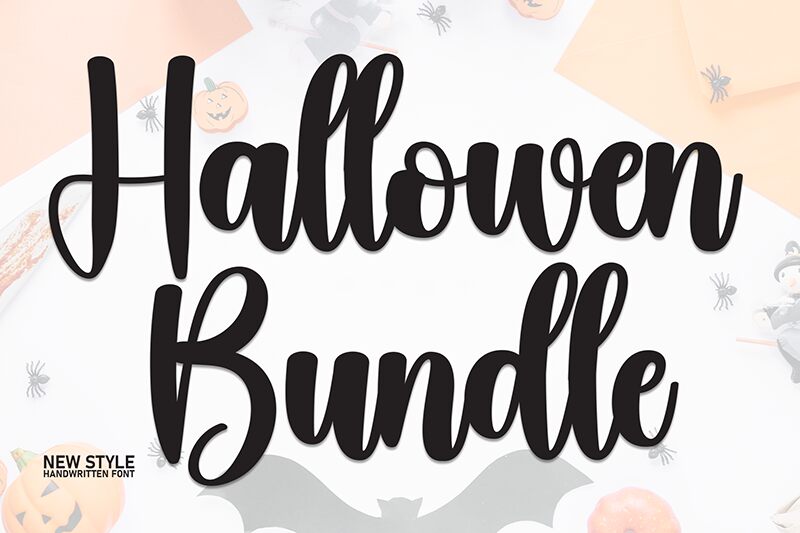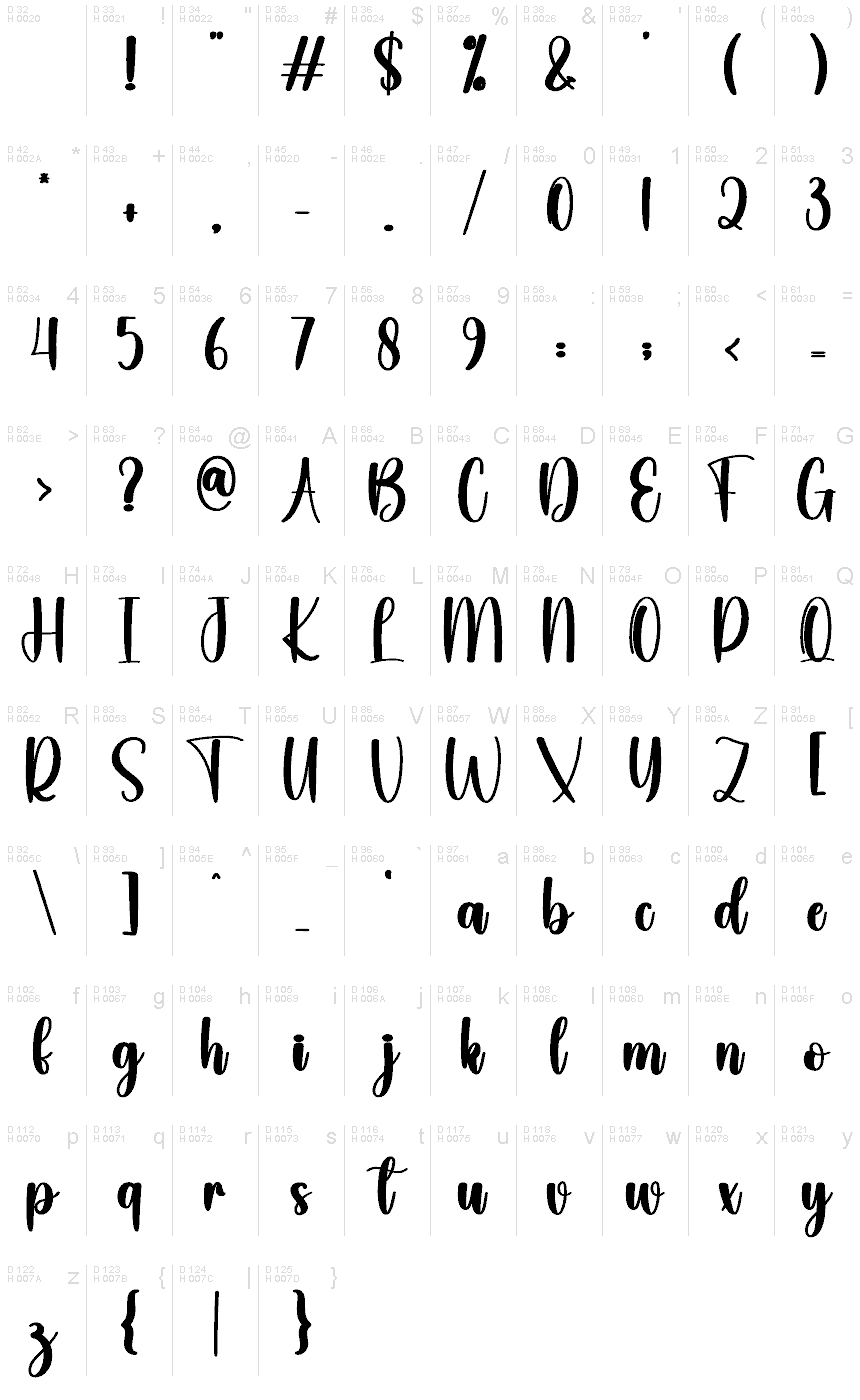
Hallowen Bundle
Hallowen Bundle font designed by Scratchones is a free handwritten font with expressive appearances and potential retro inspiration. The characters present a fluid flow and casual charm with an artistic flair in its style. The set provides different script and display designs, each of which carries the same Harley Kennington touch yet remains distinct on its own.
The contemporary appeal makes the bundle great for branding, invitations, logos and headlines. Other use cases as in wedding cards, posters, signs, books titles, social media covers or posts are all among your options ready to be grabbed at any time.